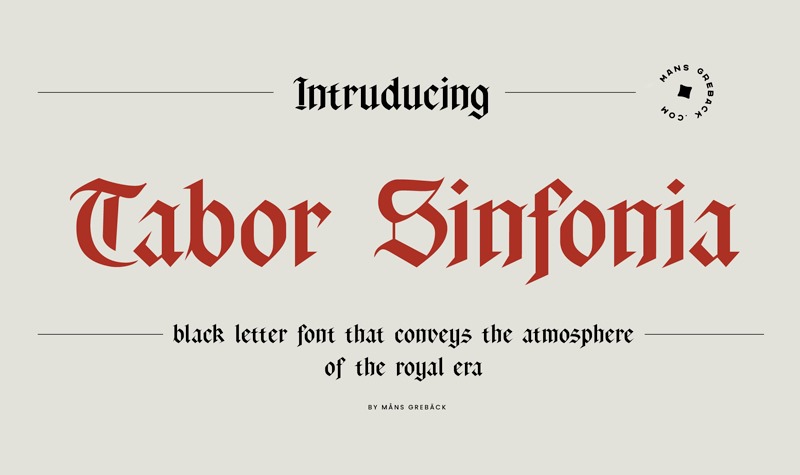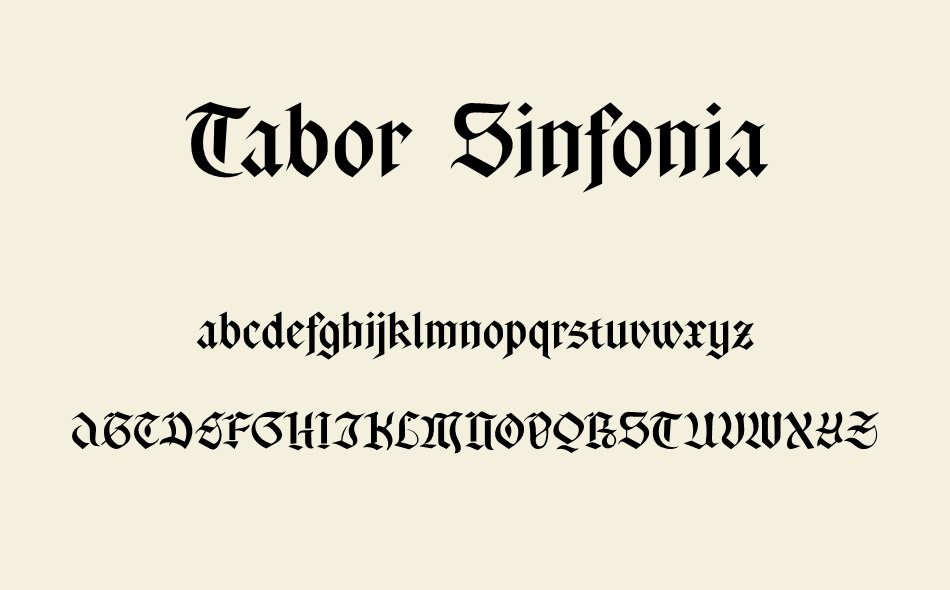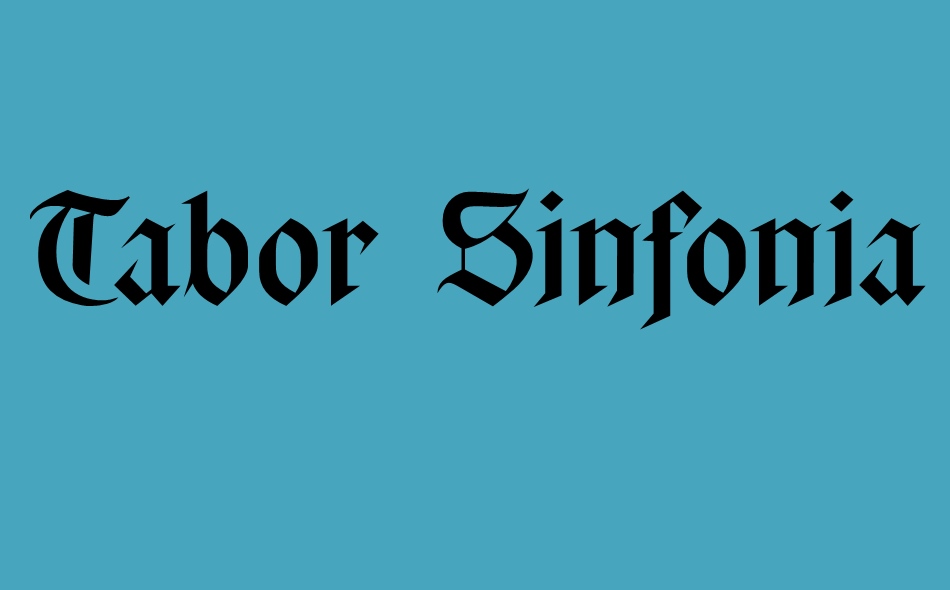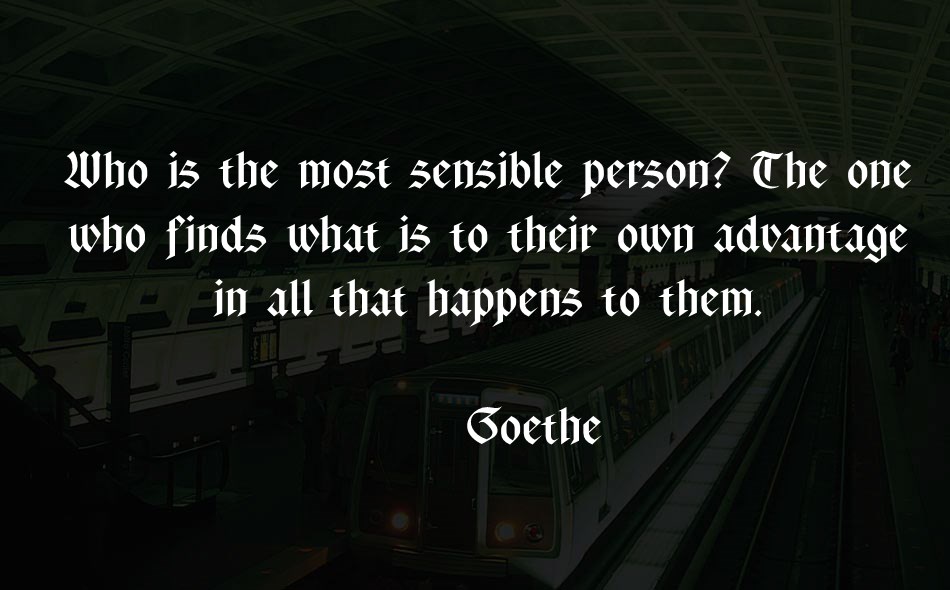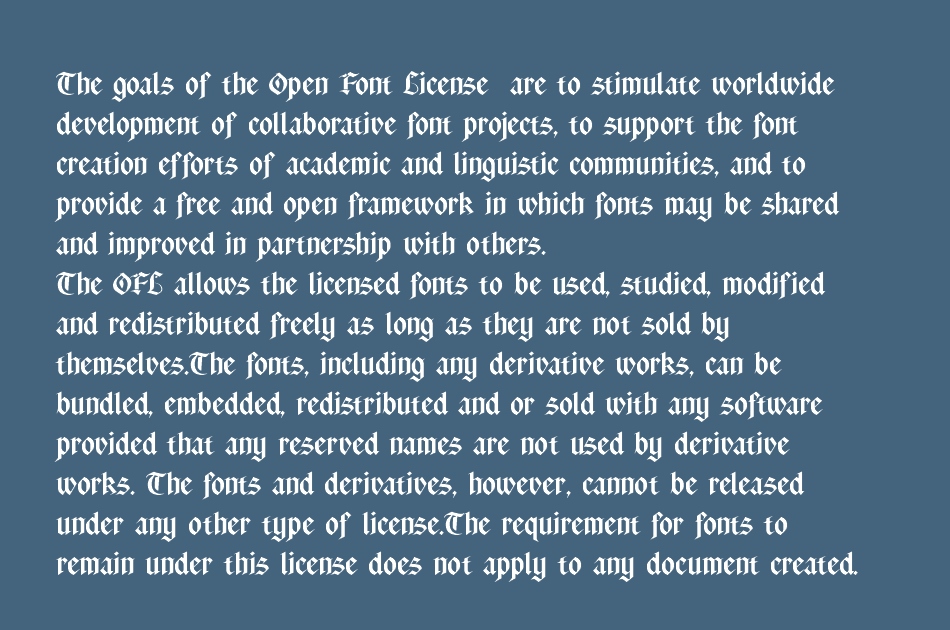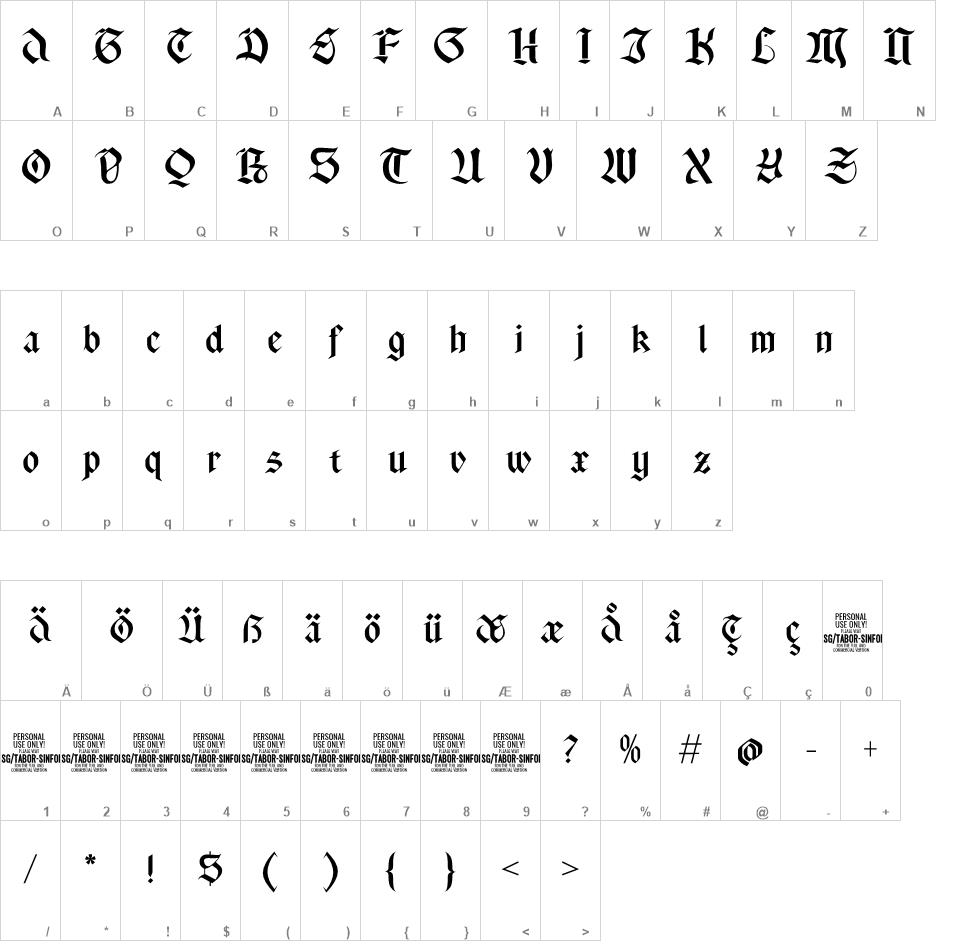
Tabor Sinfonia font
Tabor Sinfonia is a blackletter typeface that marries the historic beauty of Gothic script with the rhythm and harmony of music.
Tabor Sinfonia is a blackletter typeface that marries the historic beauty of Gothic script with the rhythm and harmony of music. This decorative font is perfect for logotypes, artistic projects, and designs that require a touch of vintage elegance.
The inspiration for Tabor Sinfonia came from a fascinating combination of medieval manuscripts and musical compositions. Mans Greback, intrigued by the relationship between visual art and music, employed AI algorithms to weave the essence of both art forms into a harmonious and captivating typeface that reflects the beauty of calligraphy and the rhythm of a symphony.
The font is built with advanced OpenType functionality and has a guaranteed top-notch quality, containing stylistic and contextual alternates, ligatures, and more features; all to give you full control and customizability. It has extensive lingual support, covering all Latin-based languages, from Northern Europe to South Africa, from America to South-East Asia. It contains all characters and symbols you'll ever need, including all punctuation and numbers.